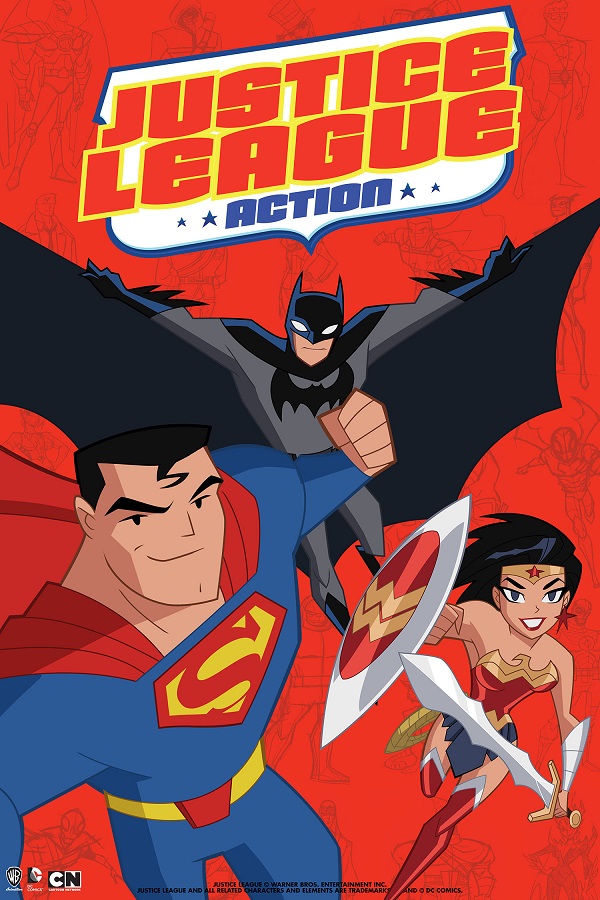
Justice League Action Font
AnimationJustice League Action is an American superhero animated television series based on the DC Comics superhero team Justice League as they defend the world from various threats and villains. The series producers are Jim Krieg, Butch Lukic, and Alan Burnett.
The title of the Justice League Action series uses an italicized version of Armada Black. The Armada family consists of 15 styles in three widths: Normal, Compressed, and Condensed, designed by Tobias Frere-Jones for Font Bureau in 1987.